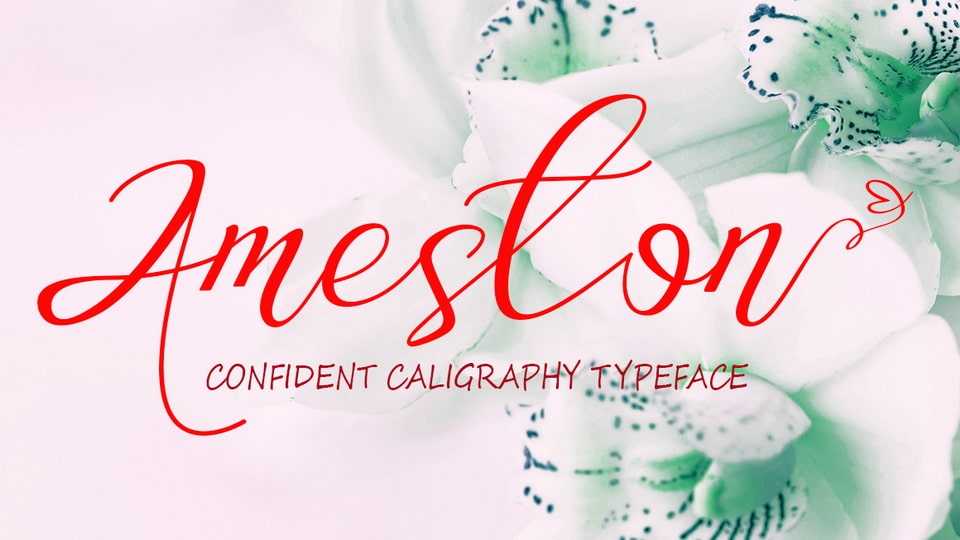
Download Ameston font, an organic handwritten typeface suitable for branding, signatures, wedding invitations, promotions, product packaging and other necessities.